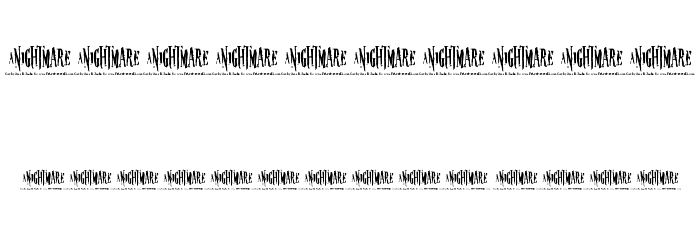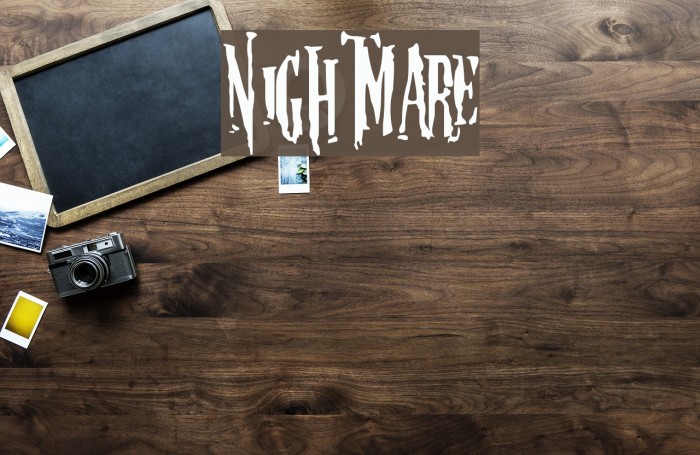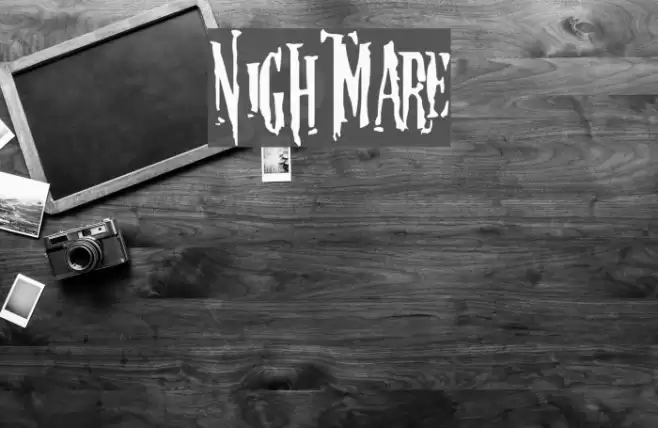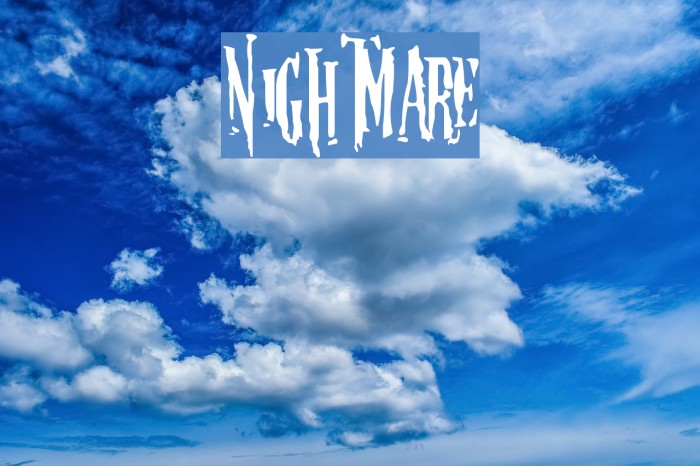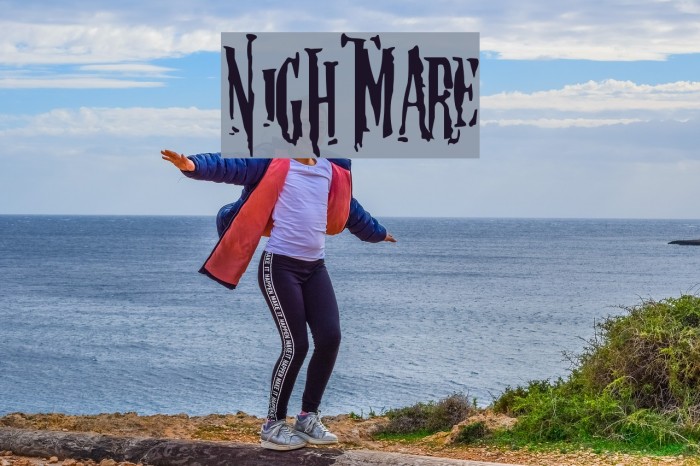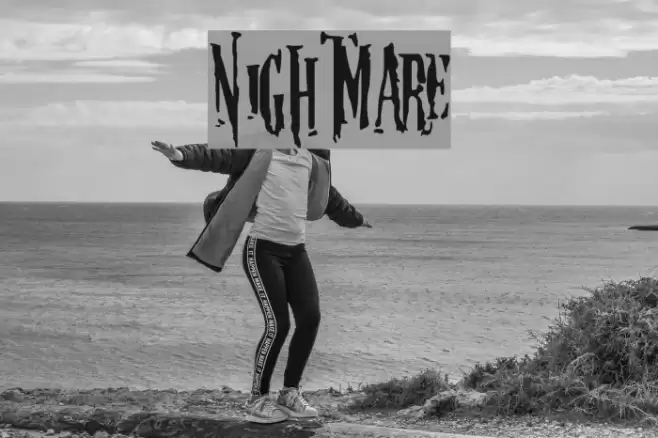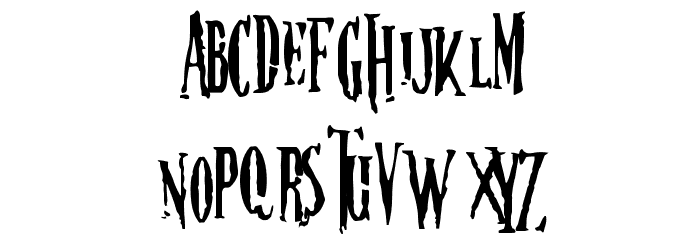
Nightmare-5 Font
Nightmare-5 Description
This font exudes a haunting and eerie vibe, characterized by its jagged, uneven strokes and sharp edges. The letters appear as if they are dripping or melting, adding to the unsettling aesthetic. The uppercase and lowercase letters maintain a consistent style, with exaggerated serifs and irregular line thickness that contribute to its gothic and horror-inspired appearance. The numbers and special characters follow the same design principles, ensuring a cohesive look across all elements. This font is perfect for projects that require a spooky or mysterious atmosphere.
| Overall Style | Gothic, Horror |
| Use Case | Headlines, Posters, Themed Events |
| Proposed Projects | Ideal for Halloween-themed designs, horror movie posters, haunted house flyers, and spooky event invitations. |